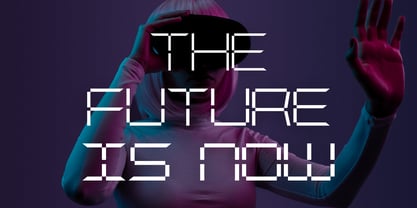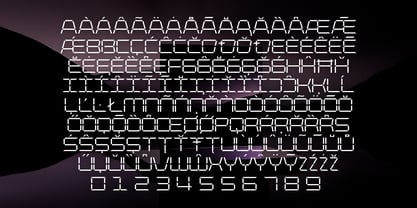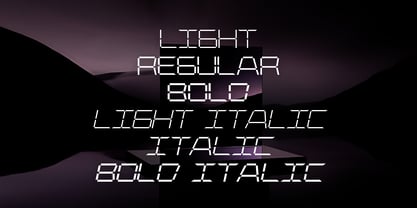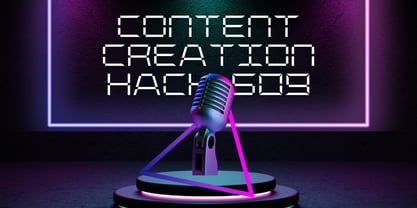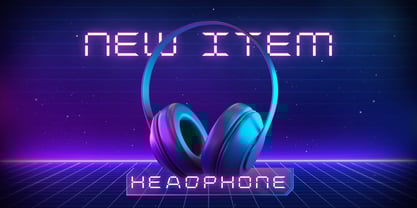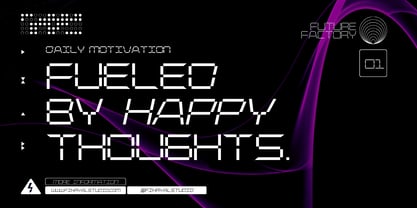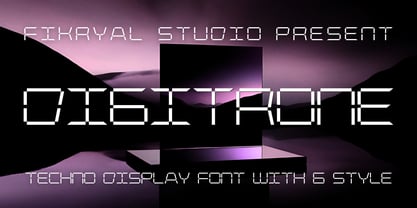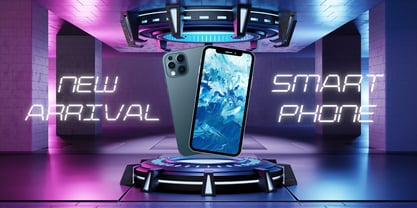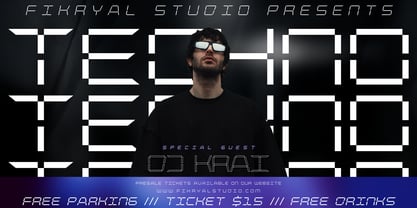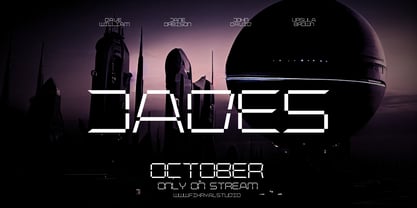
Digitrone
The Digitrone Font Family was designed by Muhammad Fikry and published by Fikryal. Digitrone contains 6 styles and family package options. More about this family
Digitrone is a futuristic all-caps display font designed for a high-tech and modern aesthetic. Featuring sharp, geometric, and precise letterforms, this font is perfect for sci-fi, cyberpunk, technology, gaming, and modern branding projects.
This font family includes six styles:
🔹 Light
🔹 Light Italic
🔹 Regular
🔹 Italic
🔹 Bold
🔹 Bold Italic
Digitrone provides versatility for various design needs, from headlines, logos, UI/UX interfaces, futuristic posters, and digital projects. The italic and bold styles add dynamic contrast, making it an excellent choice for designers looking to create a sleek and cutting-edge look.
💡 Key Features:
✔️ All Caps – Bold and futuristic uppercase lettering
✔️ 6 Styles – Flexible options for different designs
✔️ Multilingual Support – Includes a wide range of language compatibility
✔️ Ideal for branding, UI, posters, and futuristic design projects
Elevate your designs with Digitrone and bring a futuristic tech feel to your creative work!